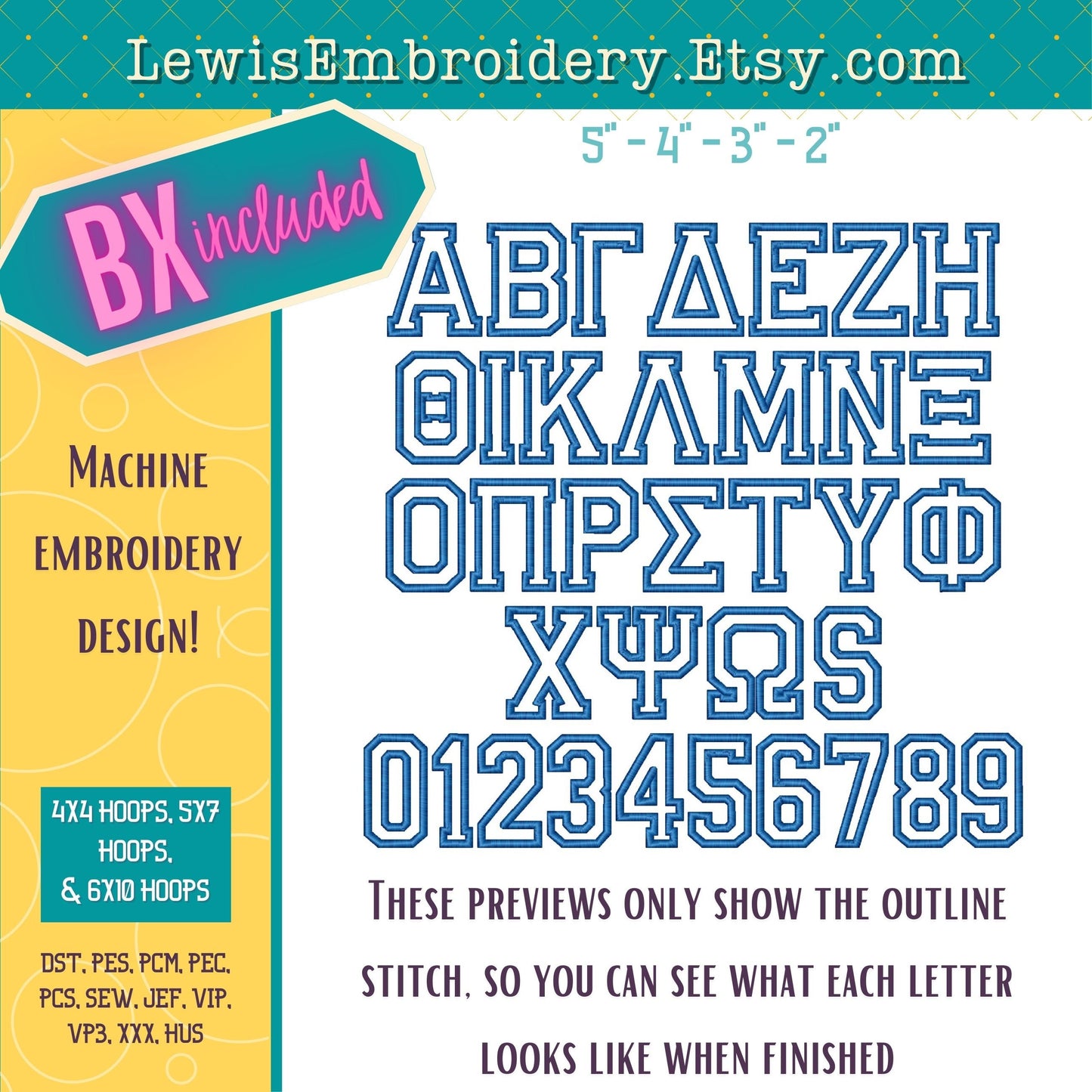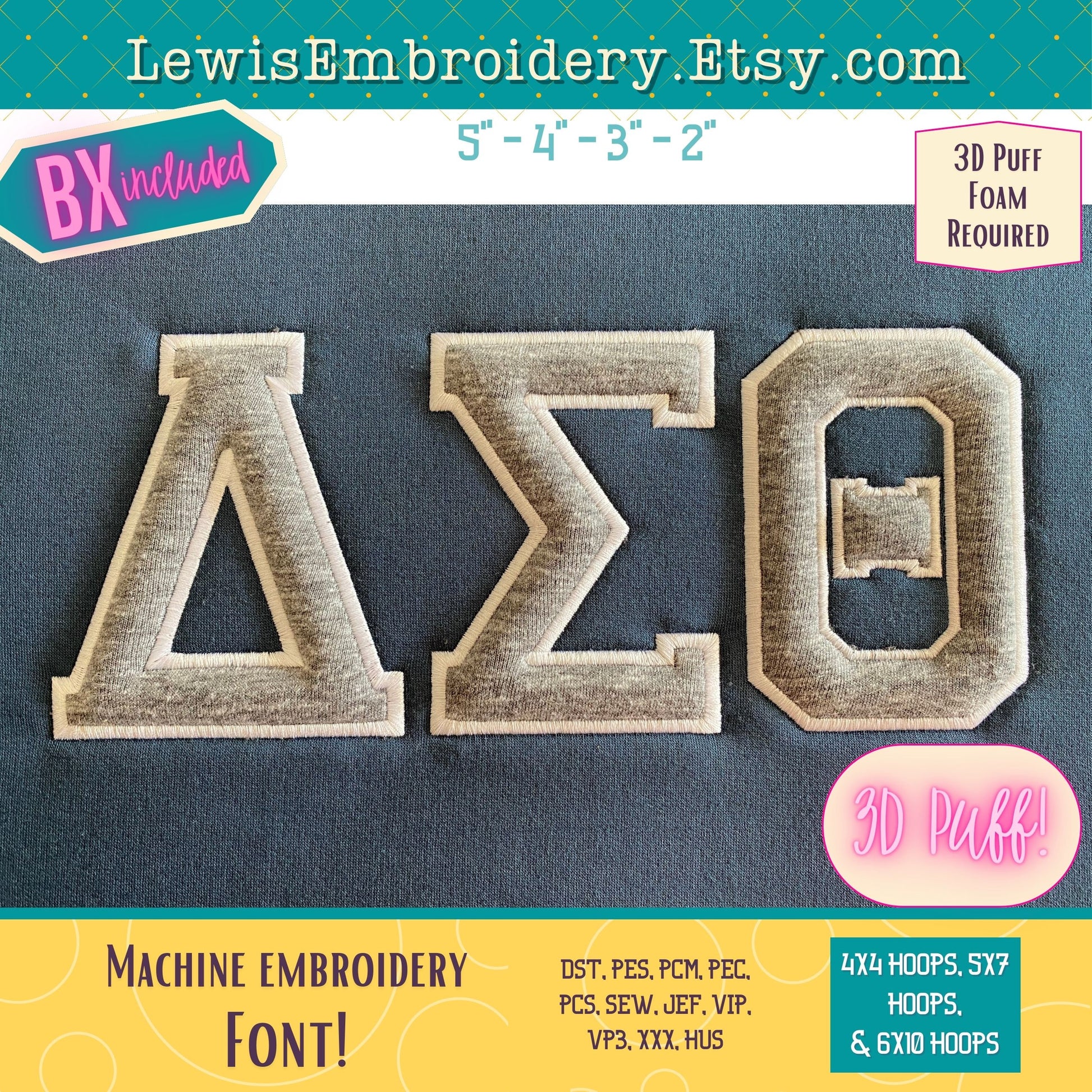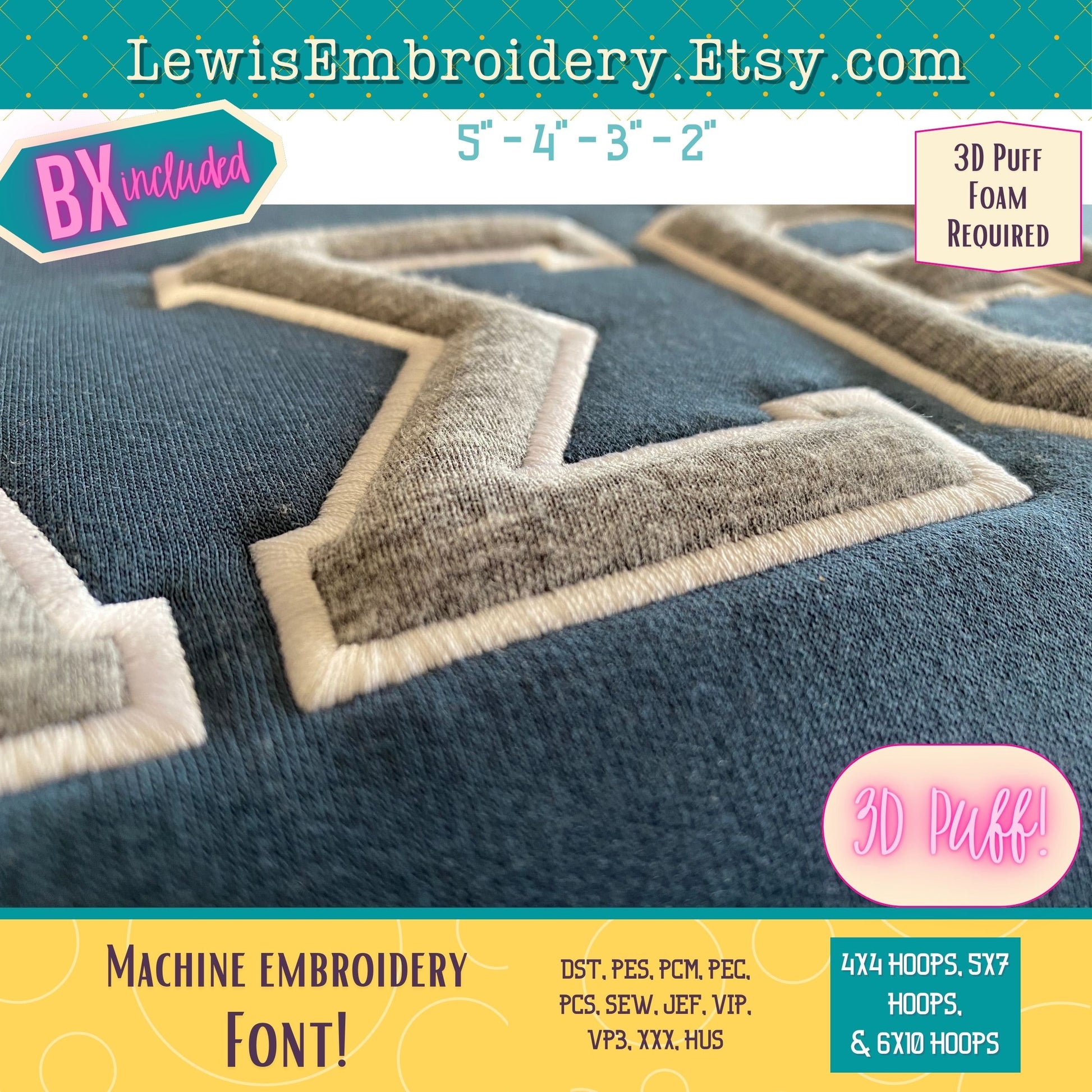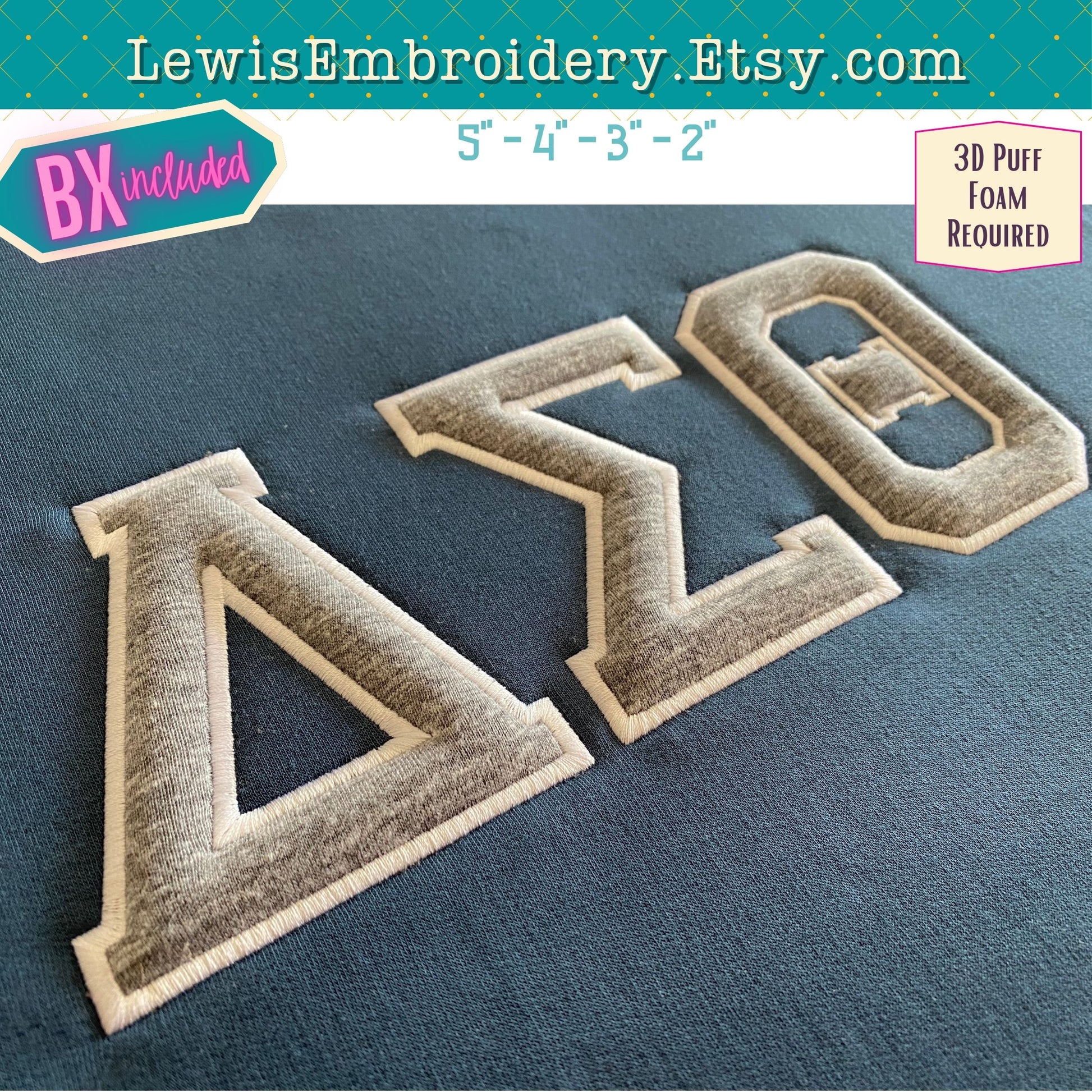
3D Puff Applique, Greek, Machine Embroidery Font - With BX & Character Map - (PDF Tutorial Included)
3D Puff Greek Applique Font - Greek Varsity Applique Font - Greek Alphabet Font - Embossed Embroidery Font - Puff Foam Embroidery Font - BX
This font was designed to be used with a weighted stretchy fabric. The quality of the outcome cannot be guaranteed if you use very lightweght fabric, or fabric with no stretch.